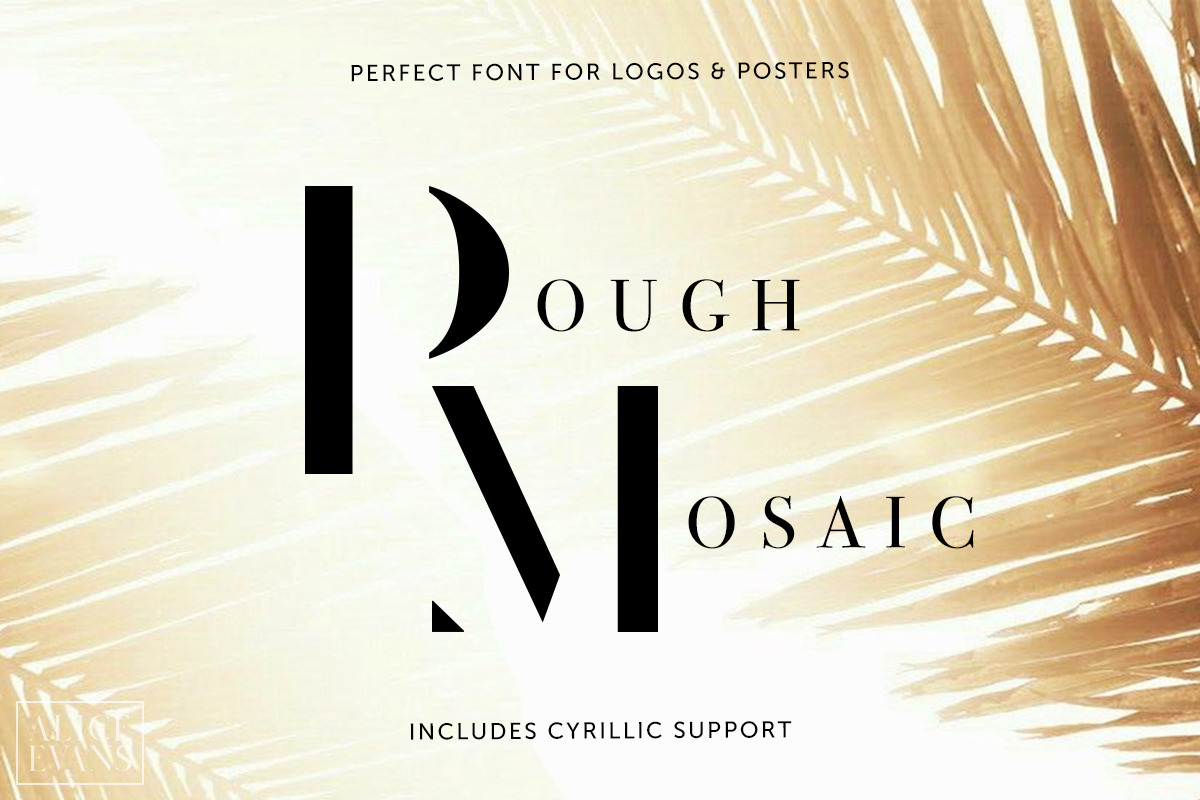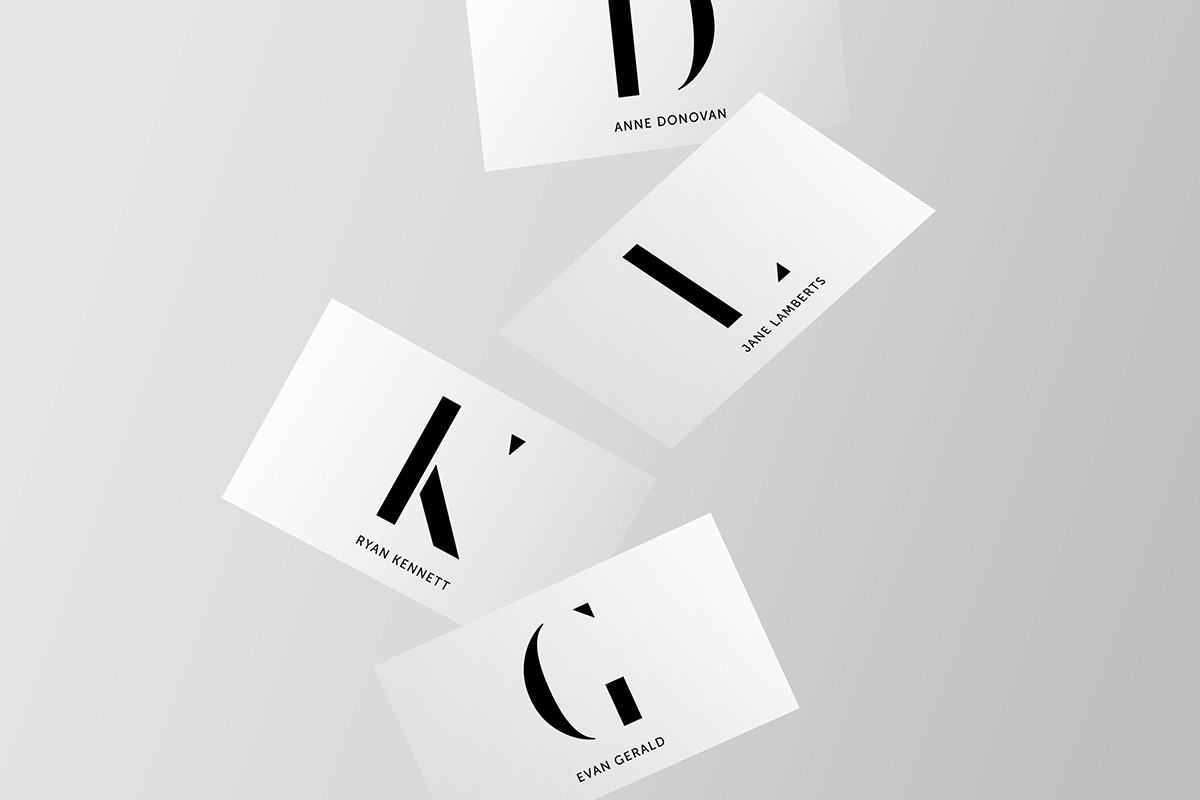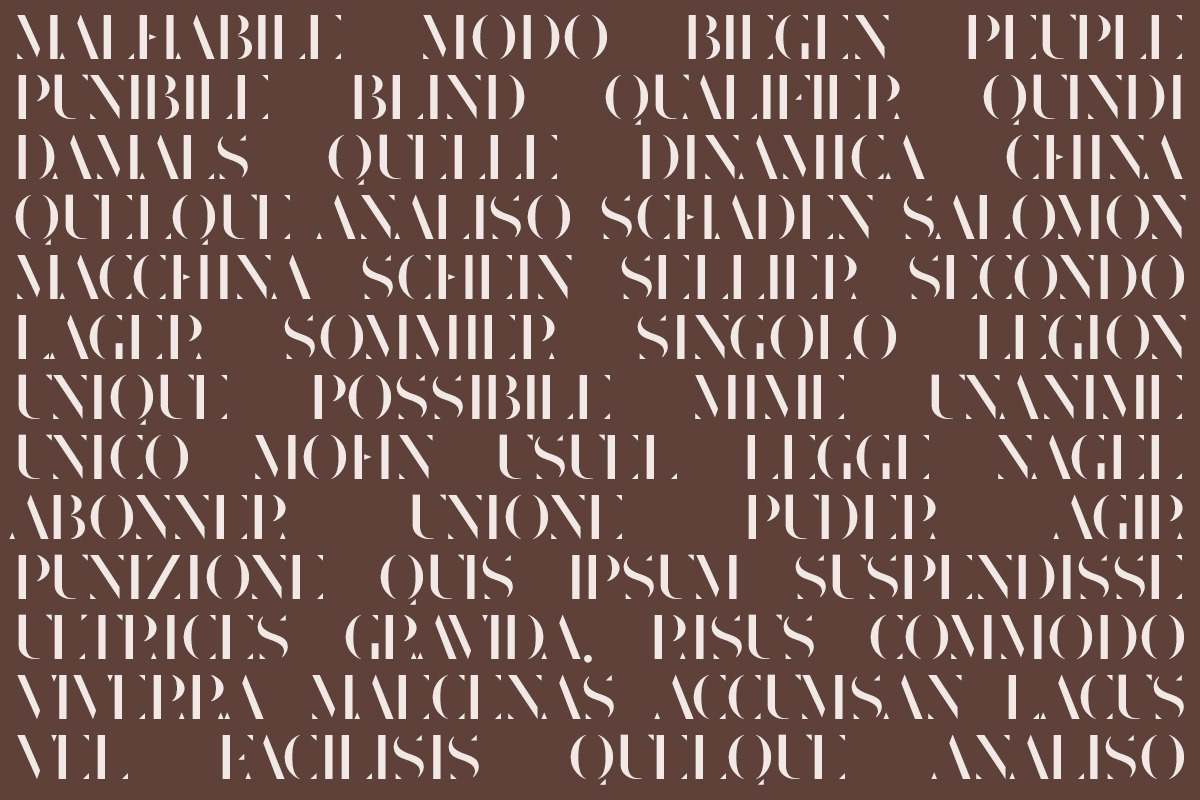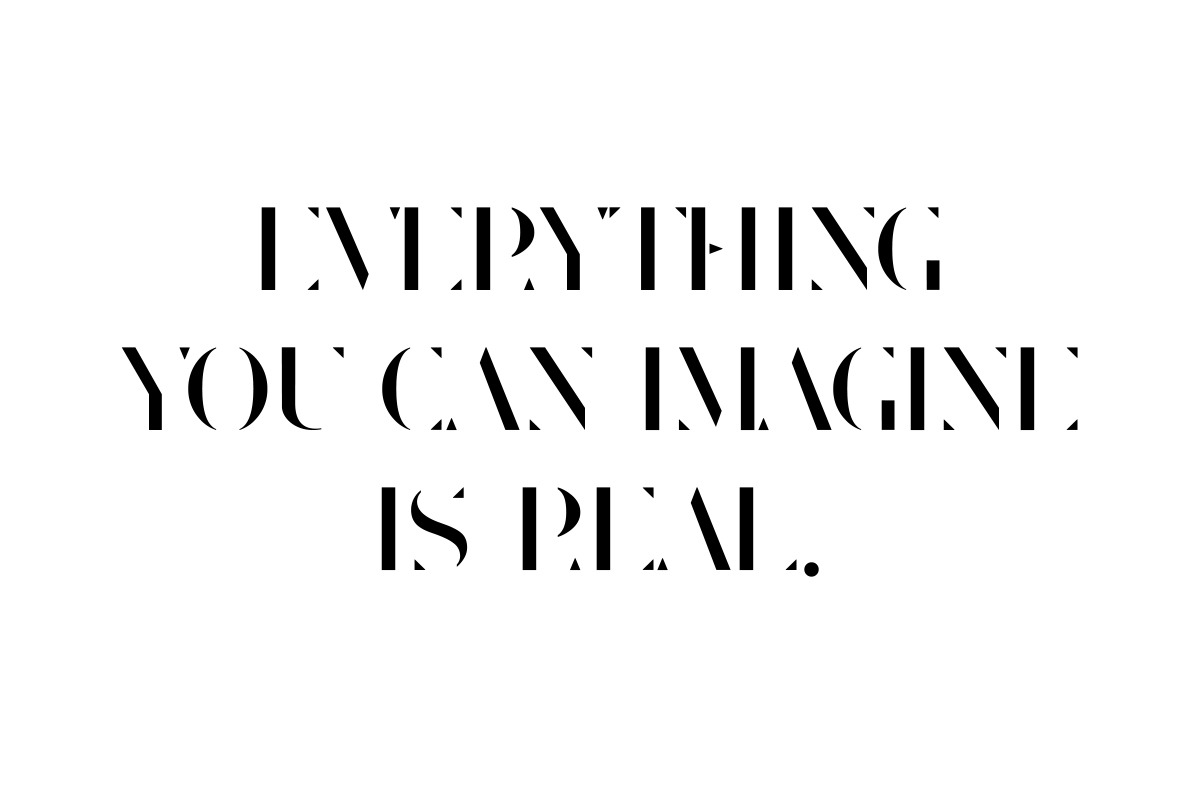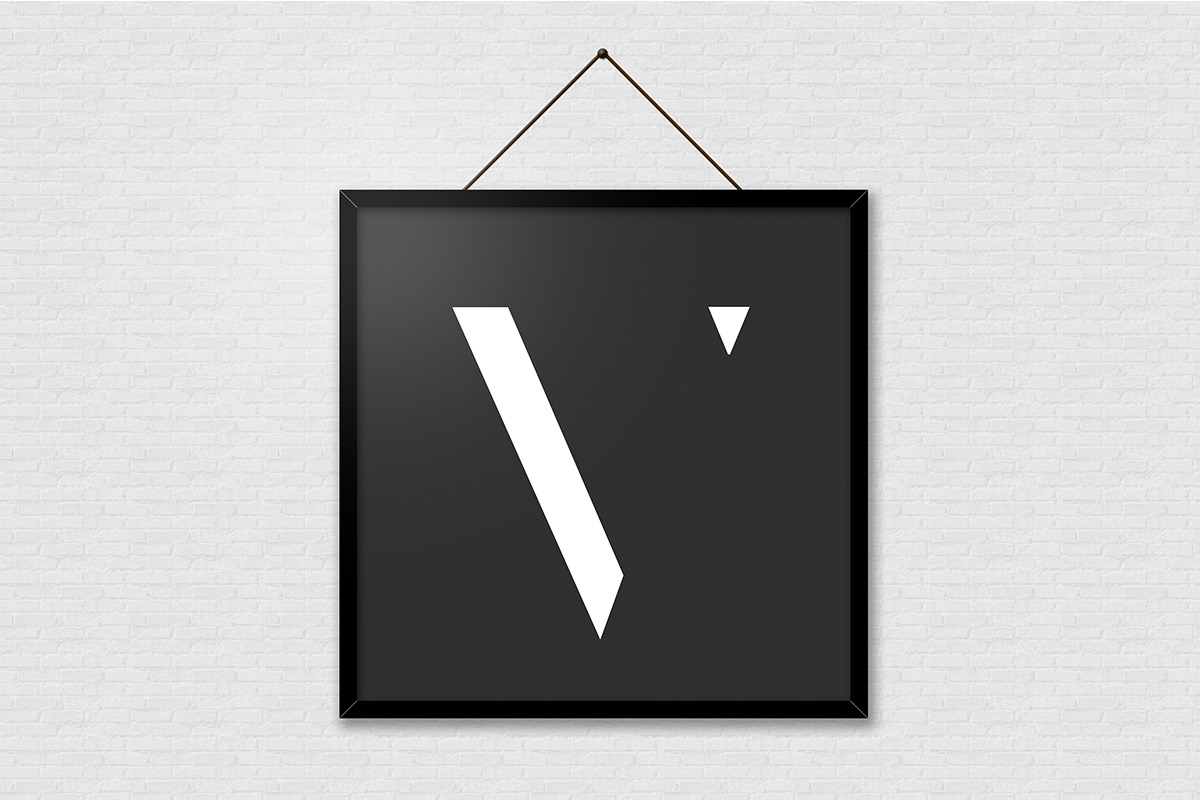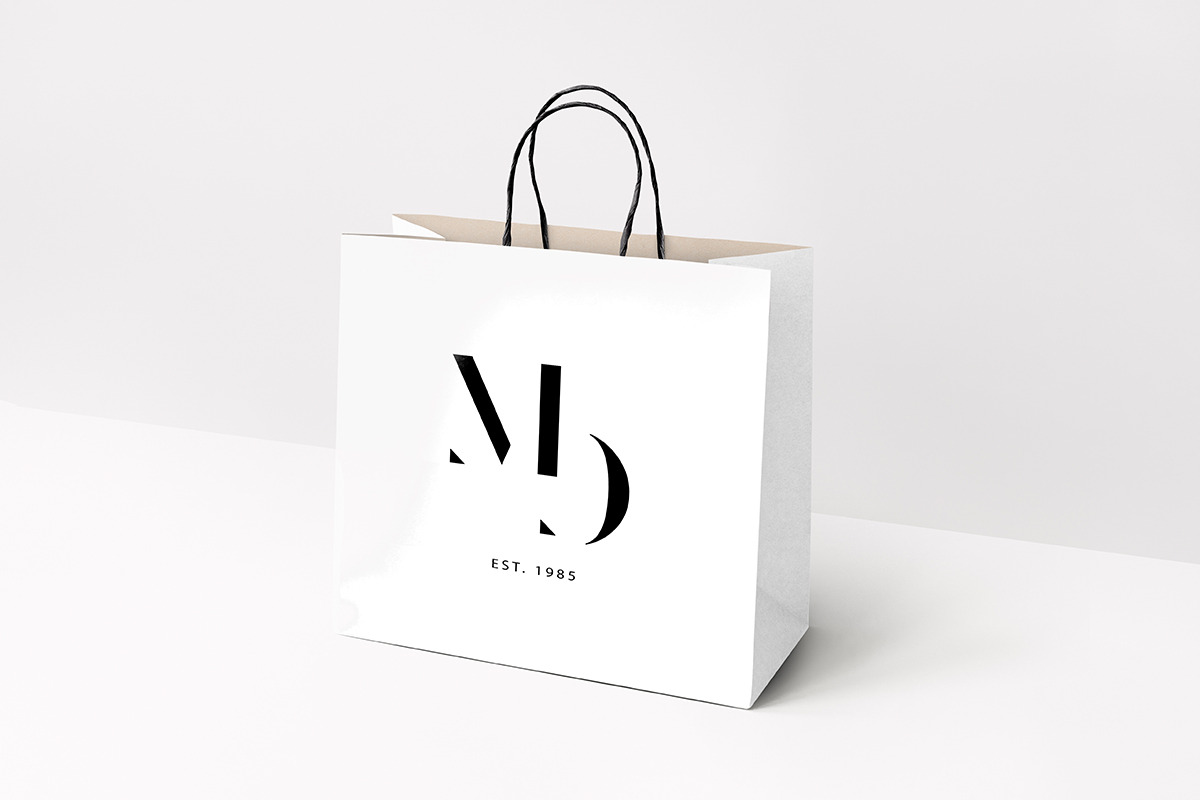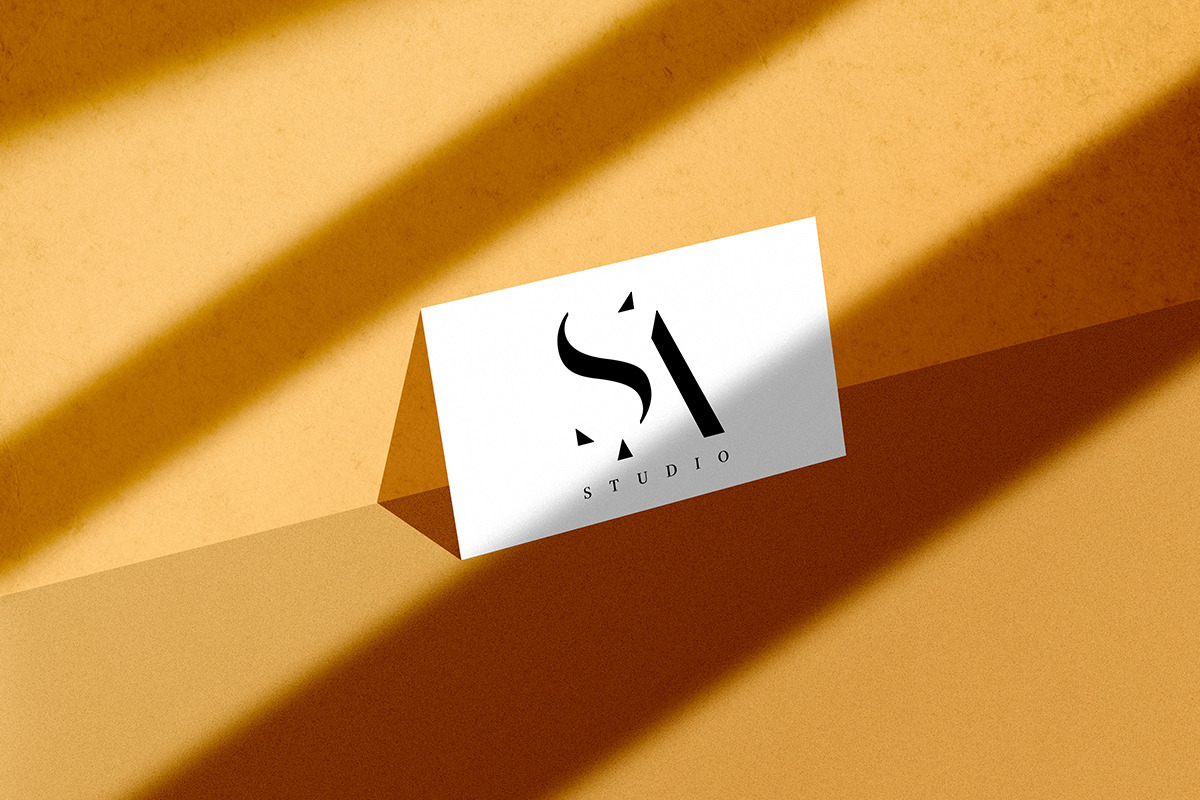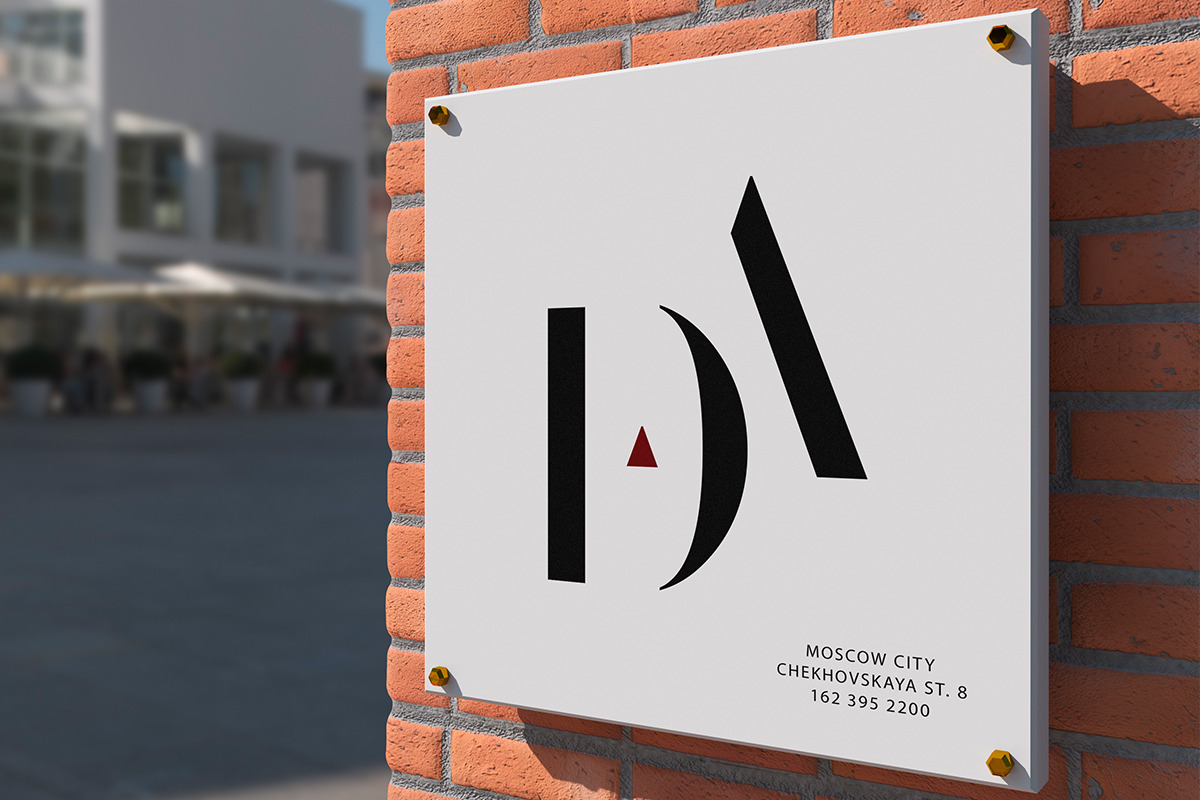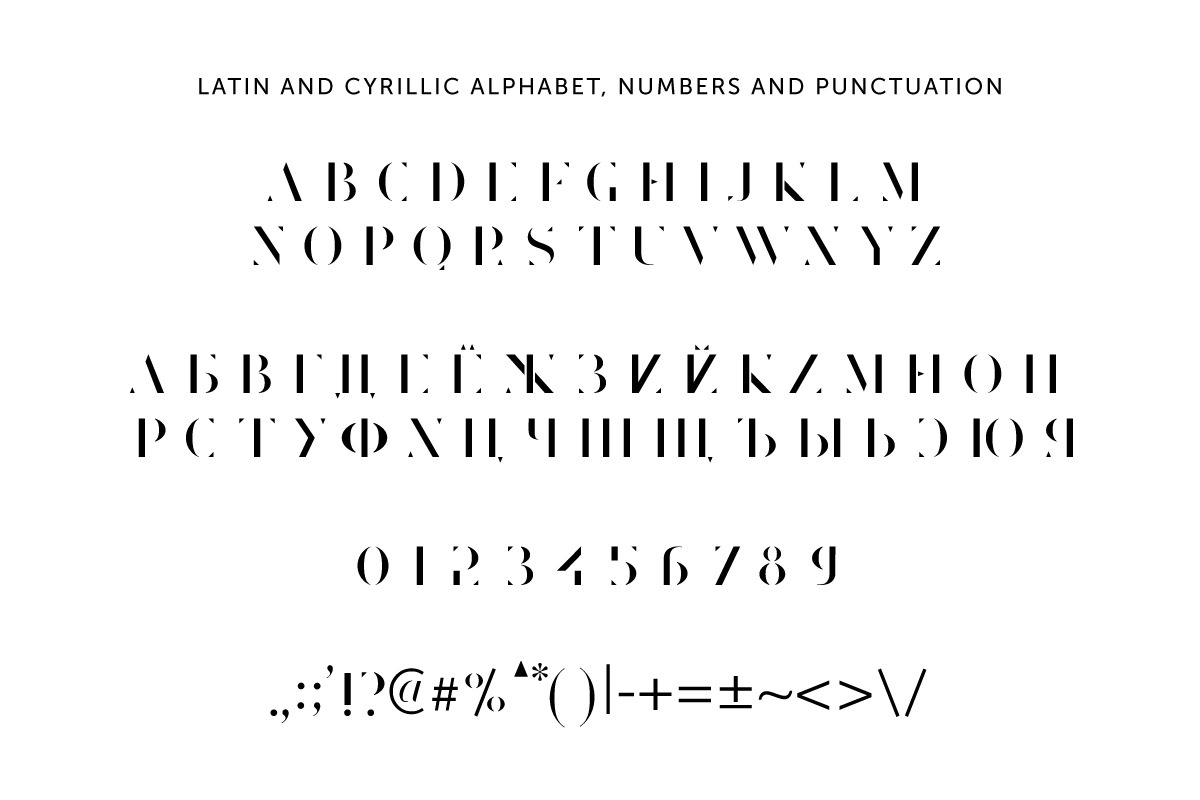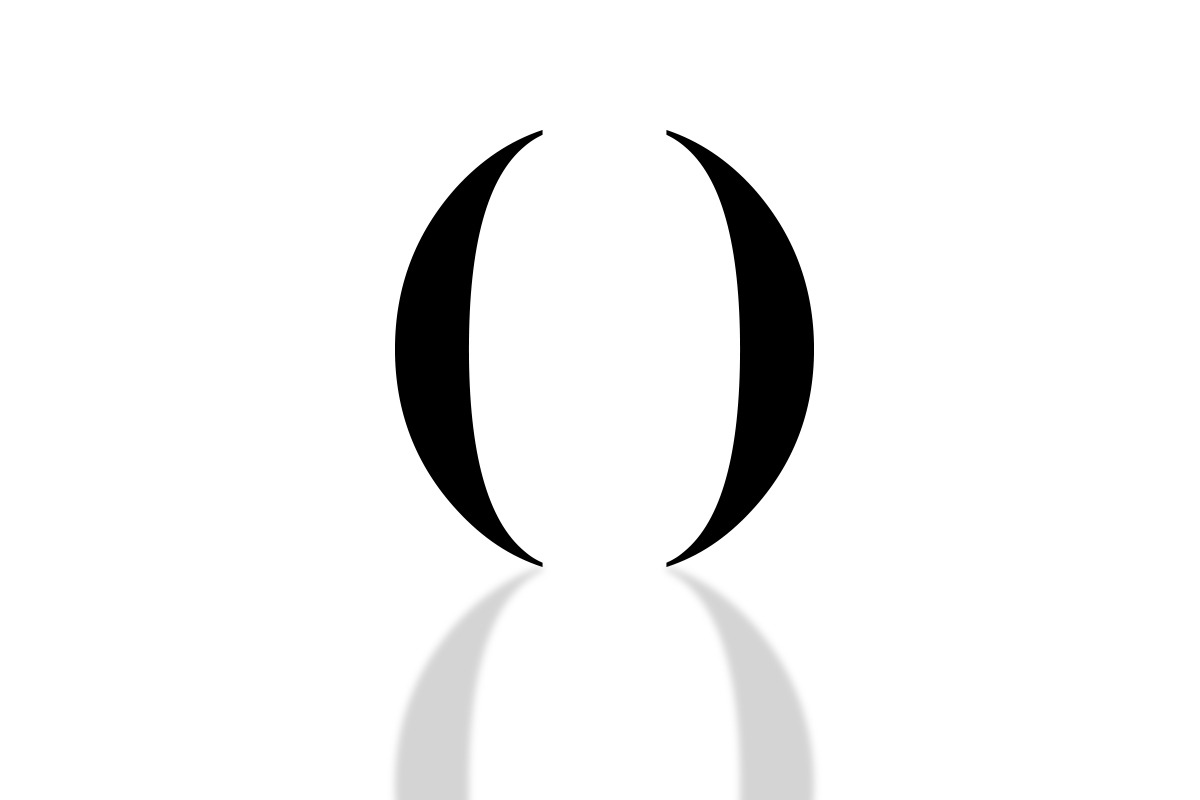
Rough Mosaic font
This font is perfect for any minimalistic designs, for logos, posters, initials and more, and more. I have created a Cyrillic alphabet also to make a chance for Russian designers to use it as well :-))
The package contains the Uppercase letters only.
Rough Mosaic features:
- x 26 uppercase Latin characters A-Z
- x 33 uppercase Cyrillic characters А-Я
- 0-9 numbers
- punctuation symbols